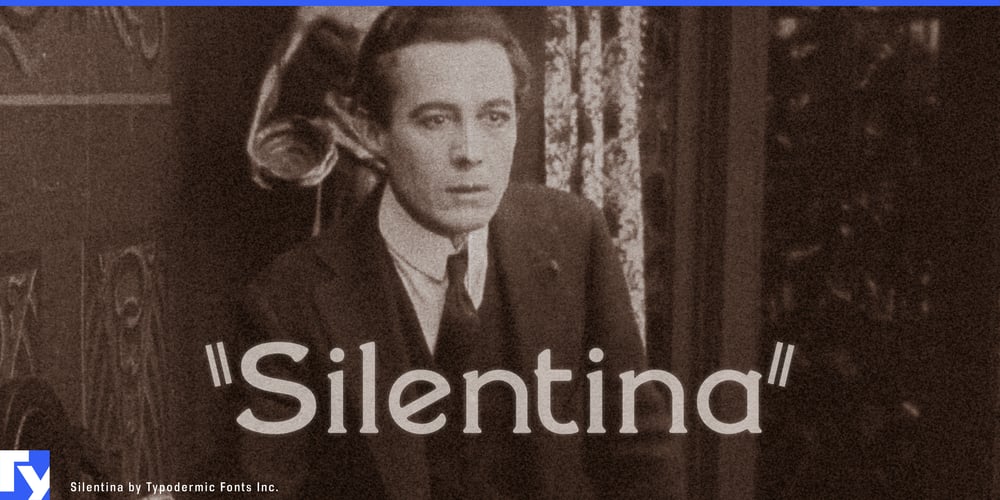
Silentina
Silentina font
Silentina Font Family was designed by Ray Larabie and published by Typodermic. Silentina contains 2 styles and family package options. Step into the flickering light of a bygone era with Silentina, a typeface that captures the glamour and romance of silent cinema. This isn’t just a font—it’s a time machine, transporting your designs to the golden age of Hollywood, where stars like Chaplin and Garbo reigned supreme.Inspired by the intertitles that once graced silver screens, Silentina brings the art of silent storytelling into the modern age. Each character is a nod to the elegant, yet impactful typography that bridged scenes and conveyed emotion when words couldn’t be heard. It’s more than just letters on a page; it’s the whisper of silk gowns, the sparkle of champagne, and the crackle of celluloid all rolled into one. Silentina doesn’t just mimic the past—it reimagines it for contemporary audiences. Use it to add a touch of vintage allure to your branding, infuse your editorial layouts with Jazz Age sophistication, or create event invitations that promise an evening of timeless elegance. This typeface turns every project into a star-studded premiere, with your message as the headlining act.But Silentina’s versatility extends far beyond its nostalgic charm. Its clear, distinctive forms ensure legibility across a variety of applications, from small-scale print to large-format displays. It’s equally at home on a speakeasy-themed menu as it is in a modern art gallery catalog, proving that true style never goes out of fashion. Silentina’s linguistic repertoire is as impressive as its visual impact. Supporting a vast array of Latin-based European writing systems, from Afaan Oromo to Zuni, this typeface ensures your message retains its vintage charm across cultures. It’s not just crossing language barriers—it’s doing it with the grace of a silent film star gliding across a ballroom floor.Choose Silentina when you want your typography to do more than communicate—when you want it to transport, to enchant, to evoke an entire era with a single glance. It’s a supporting actor in your design narrative, ready to steal the scene or play a subtle background role with equal finesse. With Silentina, your typography doesn’t just speak—it captivates, it enthralls, it leaves your audience spellbound.